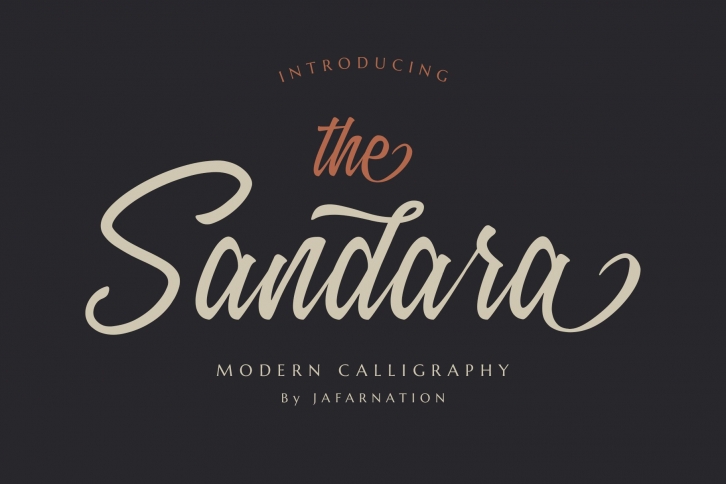
Sandara Script FONT Download
Sandara Script Font Download
Introducing the new Sandara Script Font !!! For those of you who are needing a touch of elegant and modernity for your designs, this font was created for you!
Sandara was built with OpenType features and includes ligatures, alternates, beginning and ending swashes, numbers, punctuation, and it also supports other languages. The font has smooth texture, so would be perfect for all types of printing techniques, you can do embroidery, laser cut, gold foil etc.